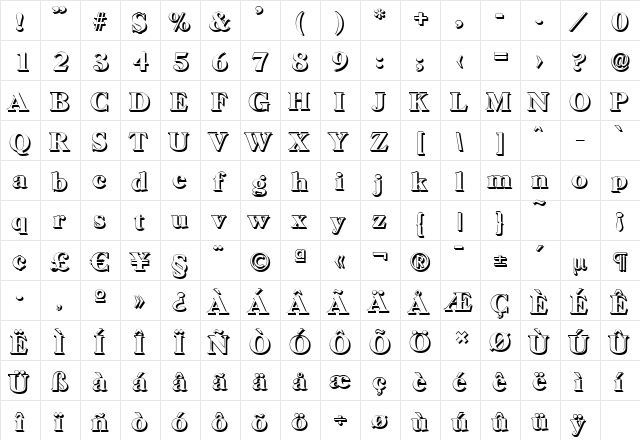
HorshamShadow Bold Font Preview
HorshamShadow Bold
Design Context for HorshamShadow Typeface
HorshamShadow is built around its visual character rather than neutral utility — its distinctive forms are designed to make an impression at display sizes. The heavy weight commands attention and anchors typographic hierarchies.
Font Pairing: Pair with a clean neutral sans-serif for body copy to let HorshamShadow's character lead without overwhelming the composition.
Pro Tip: Treat HorshamShadow as the centrepiece of your typographic hierarchy. One strong heading set in a decorative face can carry an entire layout.